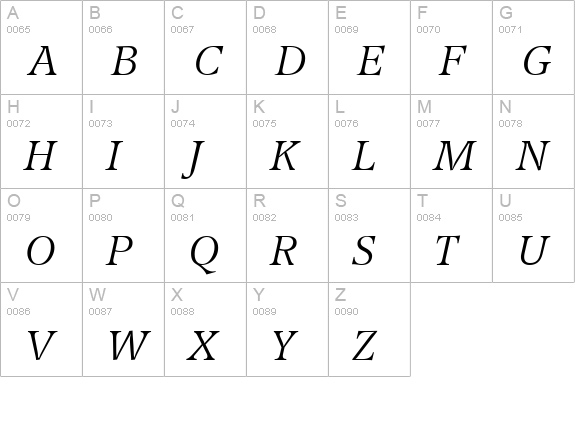
Accord Light SF Italic Font Details
Accord Light SF Italic is a refined, elegant, italic variant in the Accord typeface family \xE2\x80\x94 well suited to elegant body text, refined sub-headings, and luxury branding.
Accord Light SF Italic font is a modern and stylish typeface that exudes elegance and sophistication. Its sleek and streamlined design makes it perfect for adding a touch of sophistication to any project. The italic style adds a dynamic and contemporary flair to the text, making it stand out and capture attention. This versatile font is ideal for a wide range of applications, from branding and advertising to web design and editorial use. Its clean lines and balanced letterforms ensure excellent readability in both print and digital formats. Best of all, Accord Light SF Italic font is completely free to download at FontsMarket.com. You can easily access this high-quality font and elevate your design projects without any cost. Don't miss out on this opportunity to enhance your work with the elegance and style of Accord Light SF Italic font.